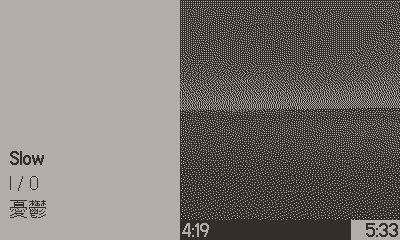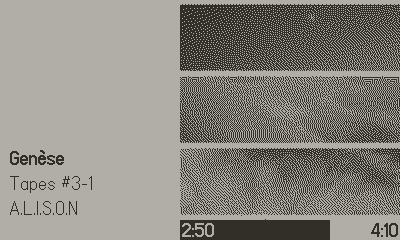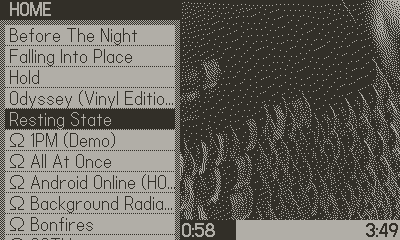
Asheville with expanded character support (and my notes on combining fonts)
I've spent the last couple days trying to find a suitable multi-language font for my music player project, and I ended up extending Asheville (the default system font) with characters from Ayu, a Japanese bitmap font that also has support for more Latin characters and some Cyrillic characters, among other things.
I've created pixel-perfect drop-in replacements for both Asheville Sans 14 Light and Asheville Sans 14 Bold, meaning the only thing that should change about your UI is less missing character symbols.
Why?
• I honestly really like the look of Asheville, and I personally believe that it works well for my application. It's not too small or too big, and the presence of normal and bold variants allow me to make text stand out without having to rely on another font or a larger text size. It just doesn't have enough characters for it to be suitable for a music player.
• Particularly at smaller text sizes, the result of converting an ordinary vector font for use on the Playdate can look rough without manual touchup, something I'm not super interested in spending my time on.
• Ayu was practically the only bitmap font I could find with comparable glyph sizes to Asheville. Everything else was too small to be comfortably readable. While Ayu can be used on its own, it doesn't have a bold variant, and I prefer the design of Asheville.
Caveats
• I've only created normal and bold variants, and currently don't plan on making an italic variant. I personally don't have much use for one, and because Ayu only has a normal variant, it isn't straightforward to do so.
• Because Ayu doesn't have a bold variant, I had to create one. I used the 'Bold strokes' option in Tophat to accomplish this.
• The resulting glyphs generally fit in well with Asheville Bold, but some accented characters are a bit rough. If someone wants to help clean these up, I'd greatly appreciate it.
• I've left all Japanese characters as is, as applying the bold effect would remove too much detail.
• In order to ensure consistent positioning with the original Asheville Bold font, the tops of some glyphs are cut off by one pixel.
I'm honestly really happy with how it turned out, and I hope that others find it helpful for their projects too.